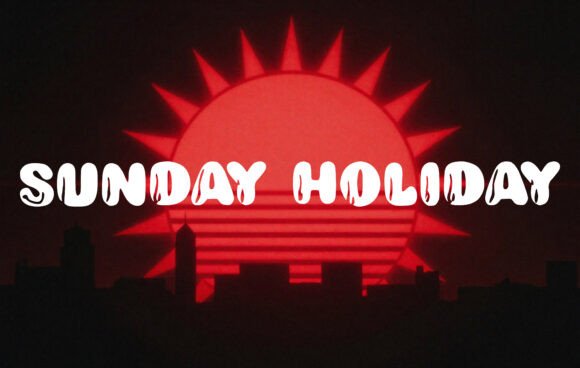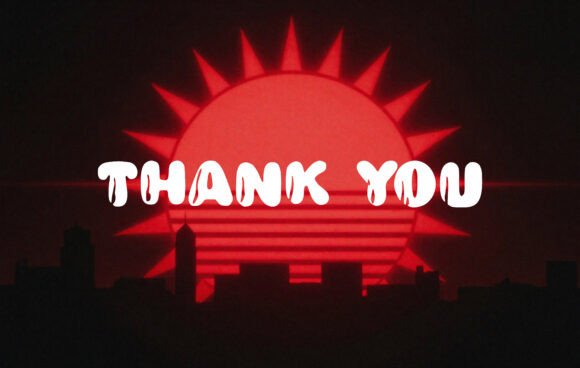
Unlocking the Power of Retro Sentiment Font
Have you ever stumbled upon an old film reel or a vintage photograph that sparks a creative moment, transporting you to a bygone era? The nostalgia and charm of retro aesthetics can be incredibly inspiring, and for designers, it’s a treasure trove of creative possibilities. One of the key design resources that can help you tap into this retro charm is the Retro Sentiment Font.
This bold and authoritative display font is a game-changer for designers, offering a unique blend of structure and playfulness that’s perfect for a wide range of creative projects. Whether you’re working on a marketing campaign, creating a personal watermark, or designing a cinematic title card, the Retro Sentiment Font is an exceptional asset that can elevate your designs to the next level.
Key Features of Retro Sentiment Font
- Unique Vintage Aesthetic: This font boasts a distinctive retro design, perfect for adding a nostalgic touch to your creative project.
- Perfect for Creative Projects: The Retro Sentiment Font is ideal for projects that require a vintage or retro vibe, such as advertising, branding, and editorial design.
Honest Review: Retro Sentiment Font
As a designer, I’m always on the lookout for unique and high-quality design resources to elevate my creative projects. The Retro Sentiment Font is a great addition to my collection, offering a distinctive aesthetic that’s perfect for vintage-inspired designs.
- ✨ The font’s nostalgic feel is well-executed, capturing the essence of a bygone era.
- ✨ The high-quality design ensures that the font looks crisp and clear, even when used at larger sizes.
- ✨ The transparent background makes it easy to layer the font over other design elements without visual clutter.
- ⚠️ The font may not be suitable for modern or minimalist designs, as its vintage vibe can feel overpowering.
Overall, I’m impressed with the Retro Sentiment Font. Its unique aesthetic and high-quality design make it a valuable addition to any designer’s toolkit. If you’re working on a project that requires a vintage feel, this font is definitely worth checking out.
Retro Sentiment Font
Tips for Getting the Most Out of Retro Sentiment Font
Use the font in conjunction with other design elements to create a cohesive look. Experiment with different font sizes and colors to add depth and visual interest to your design. Consider using the font in combination with images or graphics to create a unique composition.
Is the Retro Sentiment Font suitable for high-resolution printing?
Yes, the Retro Sentiment Font is designed to be high-quality and suitable for high-resolution printing. With its clear and crisp lines, it is perfect for use in a variety of design applications, from business cards to posters. However, please note that the quality of the printed output may depend on the specific printing equipment and settings used.